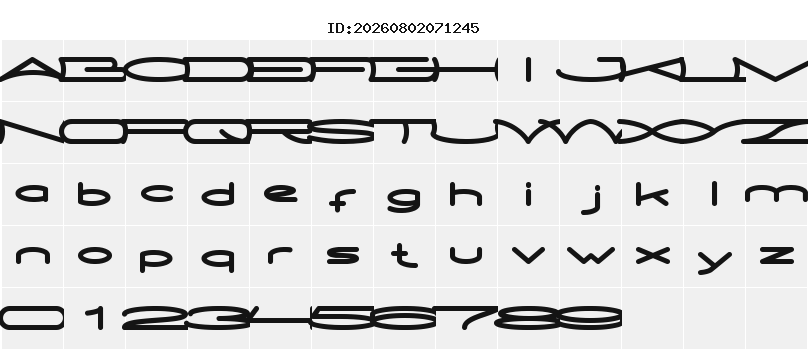
• Font Name: METRO CITY
About METRO CITY.ttf
METRO CITY.ttf is a modern, elegant sans-serif font designed for ultimate readability and visual harmony. Perfect for branding, headlines, web design, and print materials.